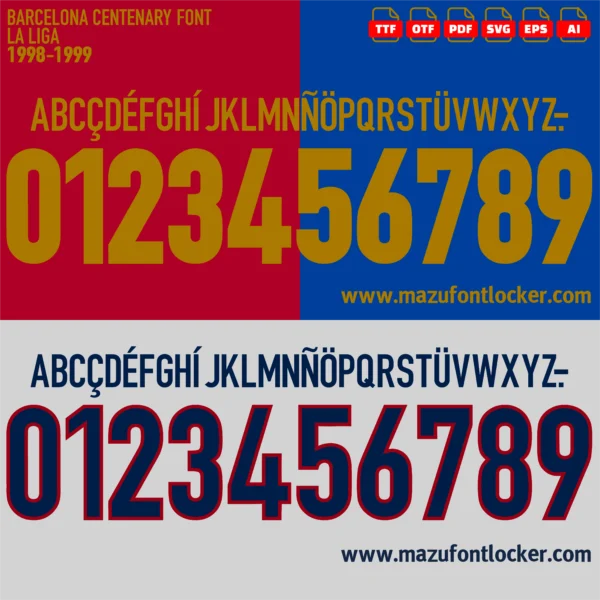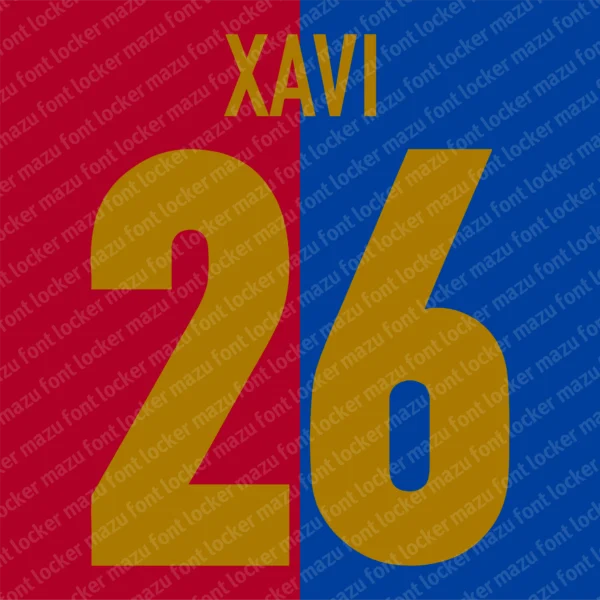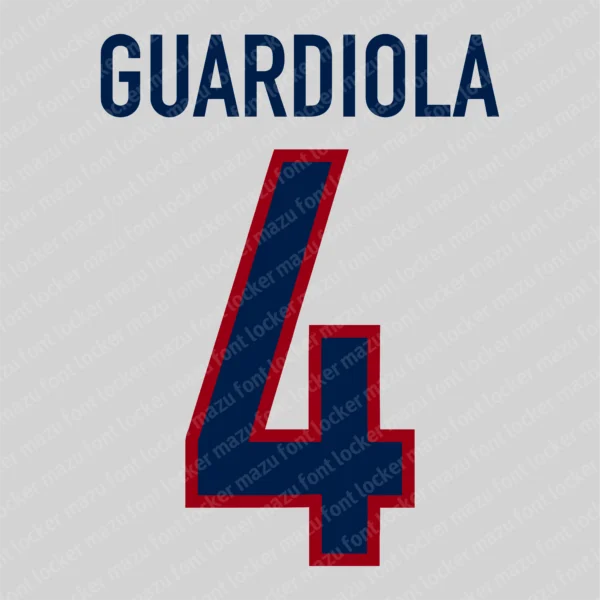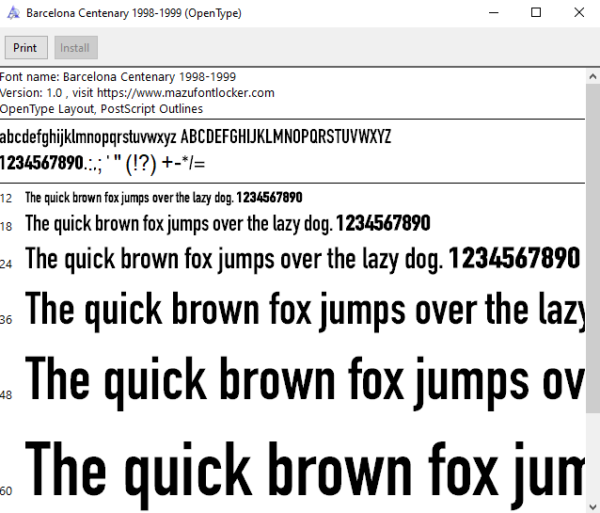
Barcelona Centenary 1998-1999 Font Vector – Iconic Blue & Red Typeface
The Barcelona Centenary 1998-1999 Font Vector is a premium typeface that accurately recreates the official match lettering worn by FC Barcelona during the 1998-1999 season, celebrating the club’s historic centenary. This high-quality vector font kit captures the bold, clean, and instantly recognizable typography that perfectly complements the club’s iconic blaugrana blue and red identity.
Why Choose Barcelona Centenary 1998-1999 Font Vector
This font stands out thanks to its precise vector construction and authentic club styling. Every letter and numeral has been meticulously recreated to match the official shirt lettering used throughout the 1998-1999 season, including the UEFA Champions League and domestic campaigns. Whether you’re producing professional kit templates or creating eye-catching football content, the Barcelona Centenary 1998-1999 Font Vector delivers a genuine match-ready appearance.
The lettering featured in the Barcelona Centenary 1998-1999 Font Vector combines clean geometric lines with powerful modern proportions. The result is a premium and highly readable typeface that reflects FC Barcelona’s ambition, Catalan pride, and passionate global fanbase during their centenary year.
- Complete uppercase A–Z alphabet and numbers 0–9 in authentic Barcelona Centenary 1998-1999 style
Barcelona Centenary 1998-1999 Season
The 1998-1999 season marked a special chapter in FC Barcelona’s history as the club celebrated its centenary while competing with ambition on the European stage. Wearing their iconic blue and red colors, the team created memorable moments for their loyal supporters during this landmark year.